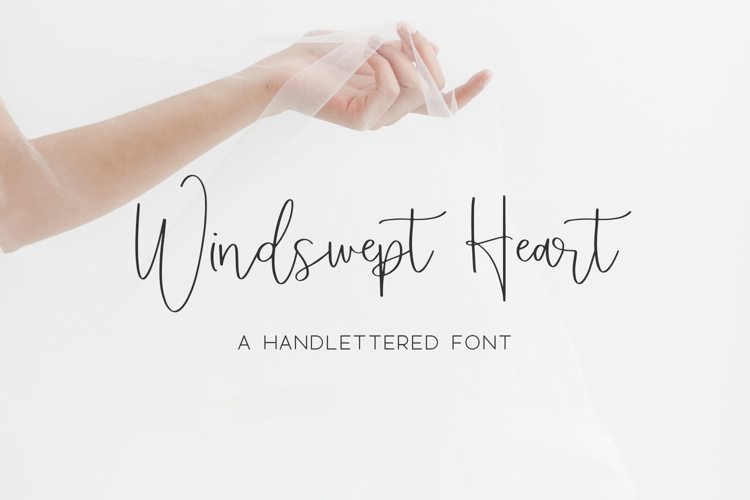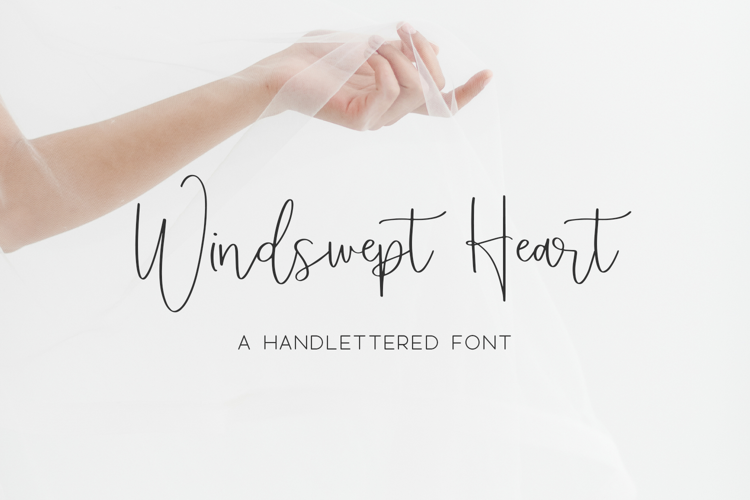
Introducing Windswept Heart, a thin & wispy flowing handlettered font. Windswept Heart has a feminine look & feel, while maintaining an effortless and casual handwritten appeal.
Windswept Heart is best for:
- website design + website accents - think design blogs, travel blogs, fashion blogs, & more
Windswept Heart includes:
- 26 lowercase alternate characters
- 1 ligature, tt